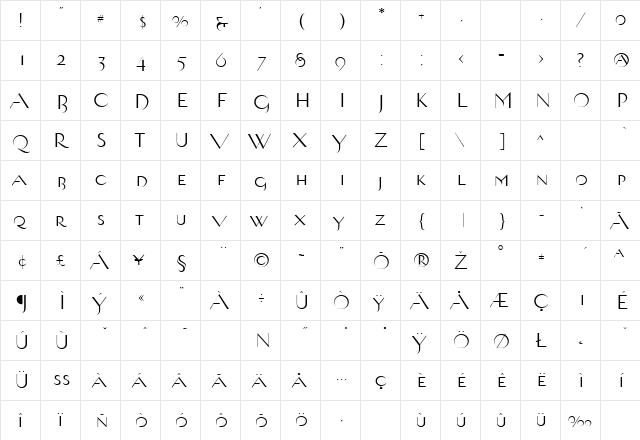
Ambient Regular Regular
Design Context for Ambient Regular Typeface
Ambient Regular offers clean, dependable letterforms without strong stylistic allegiance, making it a practical choice for designers who need flexibility.
Pro Tip: Use Ambient Regular in both headline and body roles to test its range before committing to a single application.